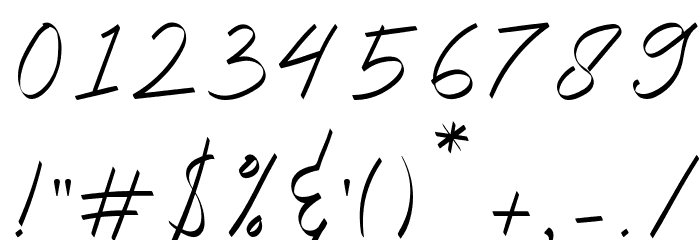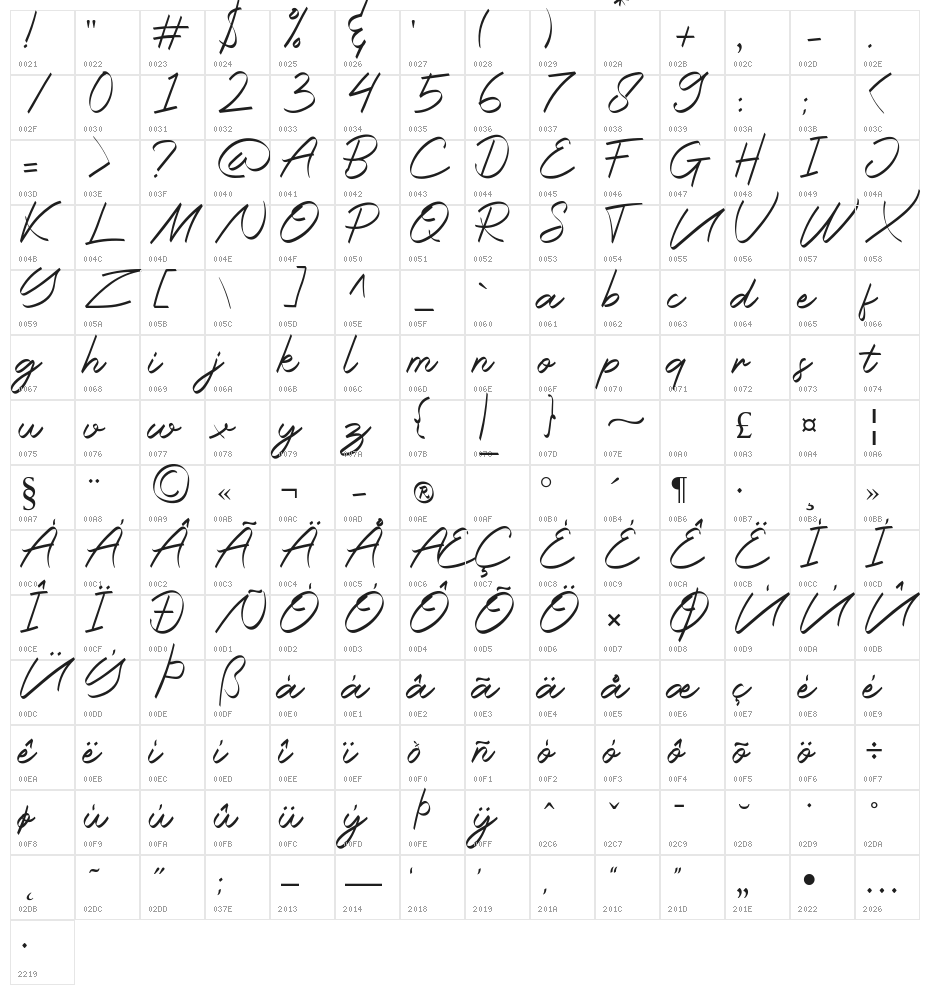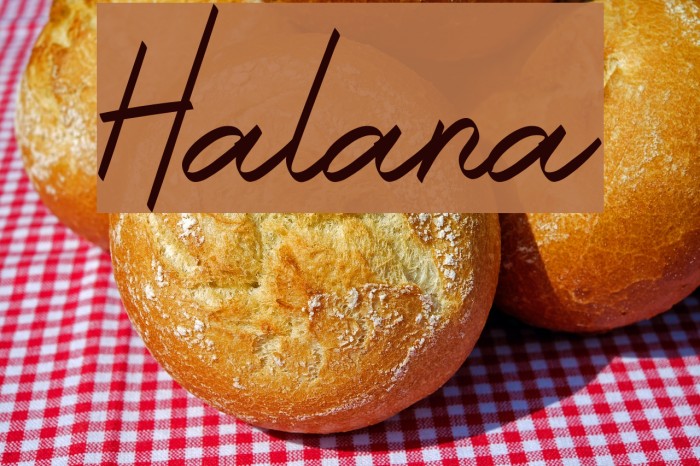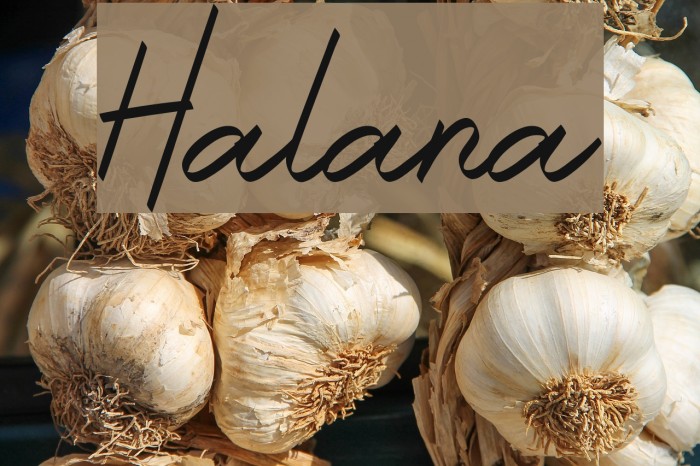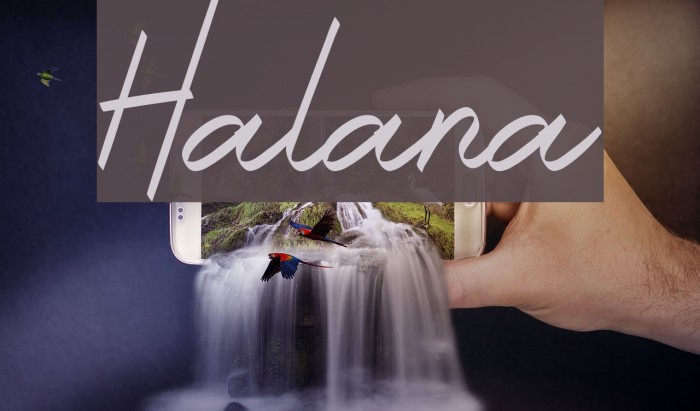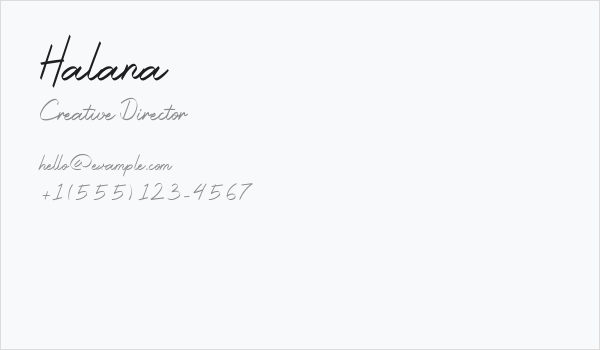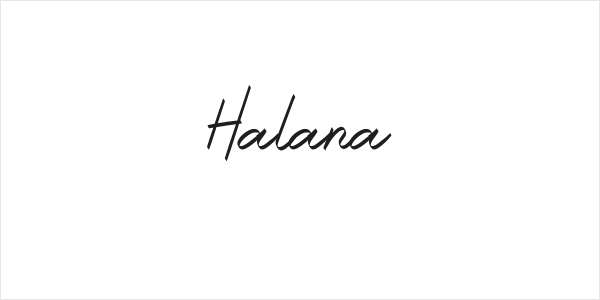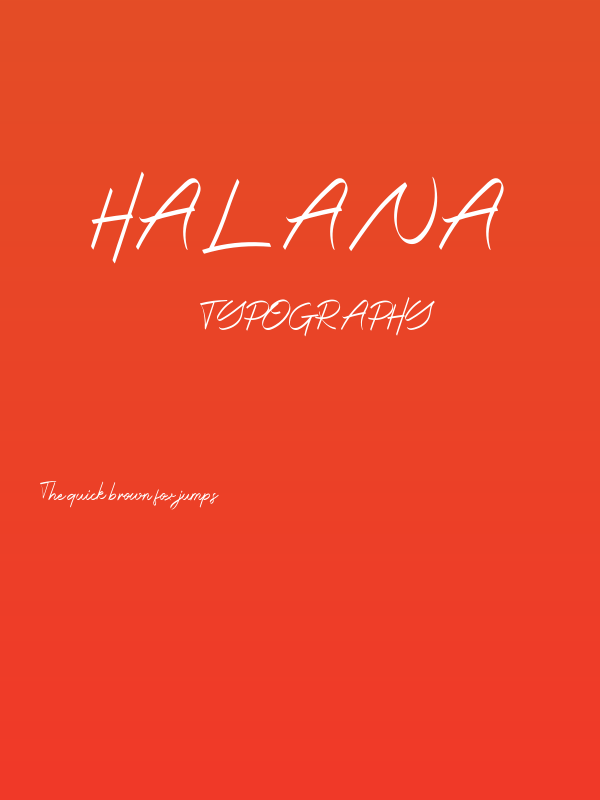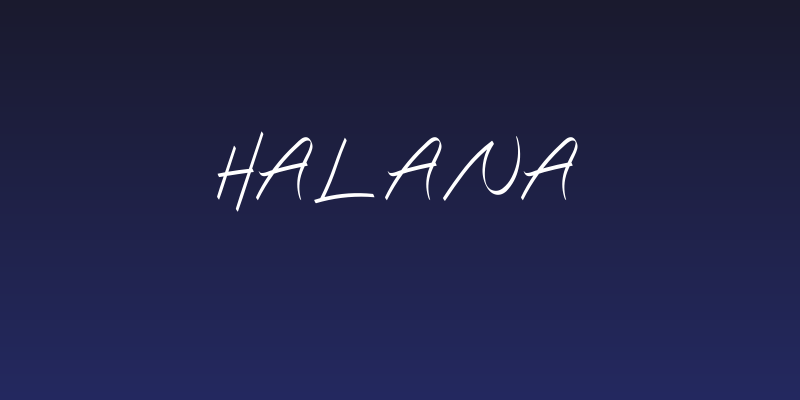
Halana Font
Halana Description
This font exhibits a dynamic and fluid cursive style, characterized by its elegant, flowing strokes that mimic natural handwriting. The uppercase letters are slightly more angular, providing a contrast to the smoother, more rounded lowercase letters. The numerals and special characters maintain the same fluidity, ensuring a cohesive look across all glyphs. The font's design is both sophisticated and approachable, making it suitable for a variety of applications where a personal touch is desired. Its legibility is maintained despite the script style, thanks to the clear distinction between each character.
| Proposed Projects | Ideal for wedding invitations, greeting cards, personal branding, and any project requiring a handwritten touch. |